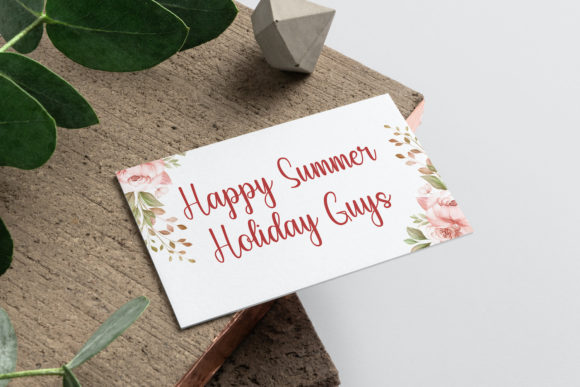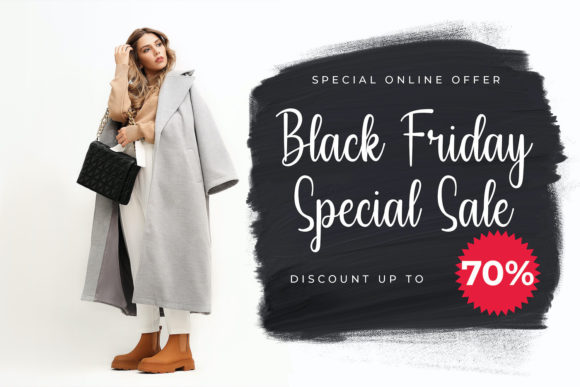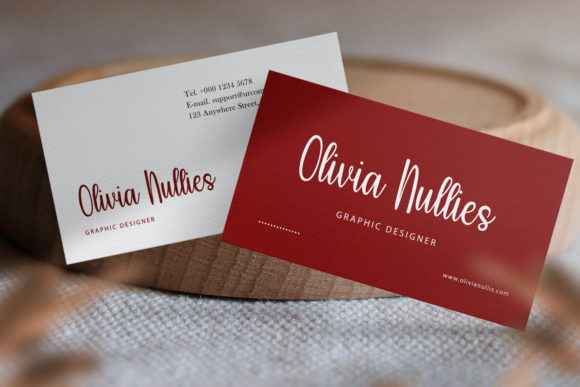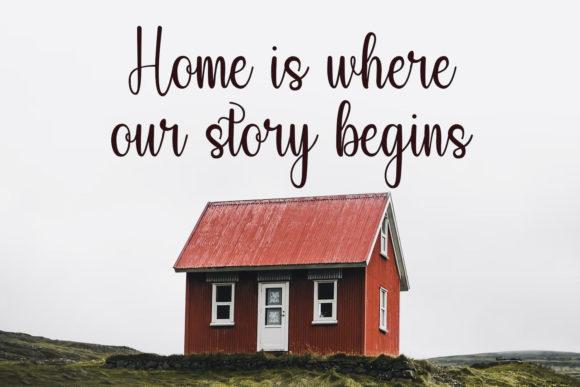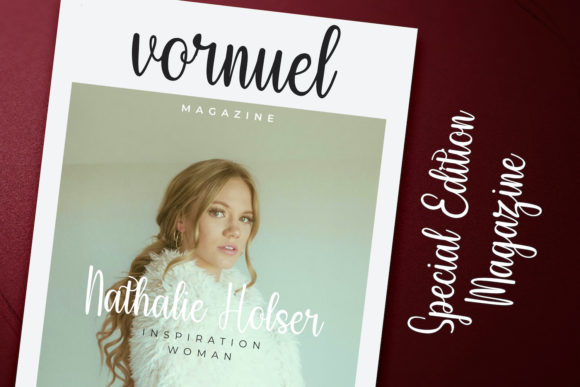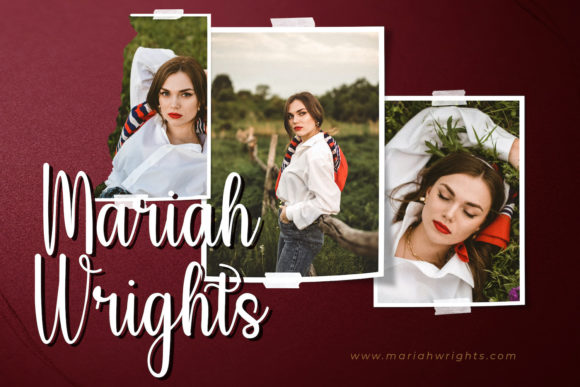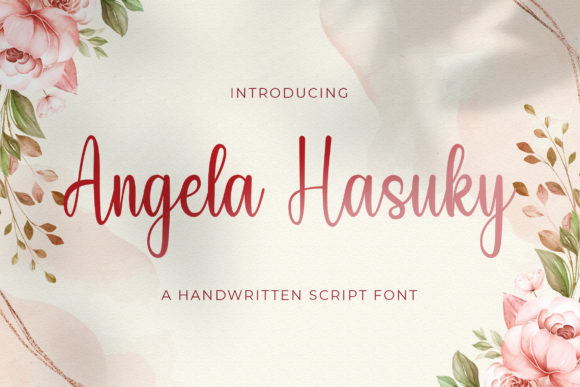
Discover the Elegance of Angela Hasuky Font: Elevate Your Designs with a Delicate Touch
Are you a designer or crafter looking for a font that can add a touch of elegance and sophistication to your creative projects? Look no further than the Angela Hasuky font. This beautiful, handwritten font is designed to bring a delicate and well-balanced feel to your designs, making it perfect for a wide range of creative applications.
What Makes Angela Hasuky Font So Special?
Angela Hasuky is a delicate, well-balanced, and adaptable handwritten font that has been crafted with attention to detail and a passion for beauty. Its characters are meticulously designed to be both elegant and approachable, making it an excellent choice for designers and crafters who want to add a personal touch to their work.
One of the standout features of Angela Hasuky is its versatility. This font matches a wide pool of designs, from modern and minimalist to vintage and ornate. Whether you’re working on a logo, a poster, a website, or a social media graphic, Angela Hasuky can help you create a visually appealing and cohesive look.
The Benefits of Using Angela Hasuky Font
So, why should you choose Angela Hasuky font for your next design project? Here are just a few benefits you can expect:
- Elegance and Sophistication: Angela Hasuky adds a touch of elegance and sophistication to any design, making it perfect for high-end brands, luxury products, and creative projects that require a refined look.
- Versatility: This font is adaptable to a wide range of designs, from modern and minimalist to vintage and ornate, making it a great addition to any designer’s toolkit.
- Readability: Angela Hasuky is designed to be easy to read, even at small sizes, making it perfect for body text, captions, and other applications where legibility is key.
- Uniqueness: With its delicate and well-balanced characters, Angela Hasuky stands out from more traditional fonts, giving your designs a unique and distinctive look.
How to Use Angela Hasuky Font in Your Designs
Angela Hasuky font is easy to use and can be incorporated into a variety of design projects. Here are a few ideas to get you started:
- Logos and Branding: Use Angela Hasuky to create a unique and memorable logo that reflects your brand’s personality and values.
- Posters and Flyers: Add a touch of elegance to your posters and flyers with Angela Hasuky, perfect for promoting events, products, or services.
- Websites and Social Media: Use Angela Hasuky to create visually appealing website headers, social media graphics, and other online content that showcases your brand’s personality.
- Stationery and Packaging: Add a personal touch to your stationery, packaging, and other print materials with Angela Hasuky, perfect for businesses, craftspeople, and artists.
Tips for Getting the Most Out of Angela Hasuky Font
To get the most out of Angela Hasuky font, here are a few tips to keep in mind:
- Experiment with Pairings: Try pairing Angela Hasuky with other fonts to create a unique and visually appealing combination.
- Play with Size and Color: Experiment with different sizes and colors to add depth and interest to your designs.
- Use it for Headings and Titles: Angela Hasuky is perfect for headings and titles, where its elegance and sophistication can really shine.
In conclusion, Angela Hasuky font is a beautiful, delicate, and adaptable handwritten font that can add a touch of elegance and sophistication to any design project. With its versatility, readability, and uniqueness, it’s an excellent choice for designers and crafters looking to elevate their creative work. So why not give Angela Hasuky a try and see how it can bring your designs to life?